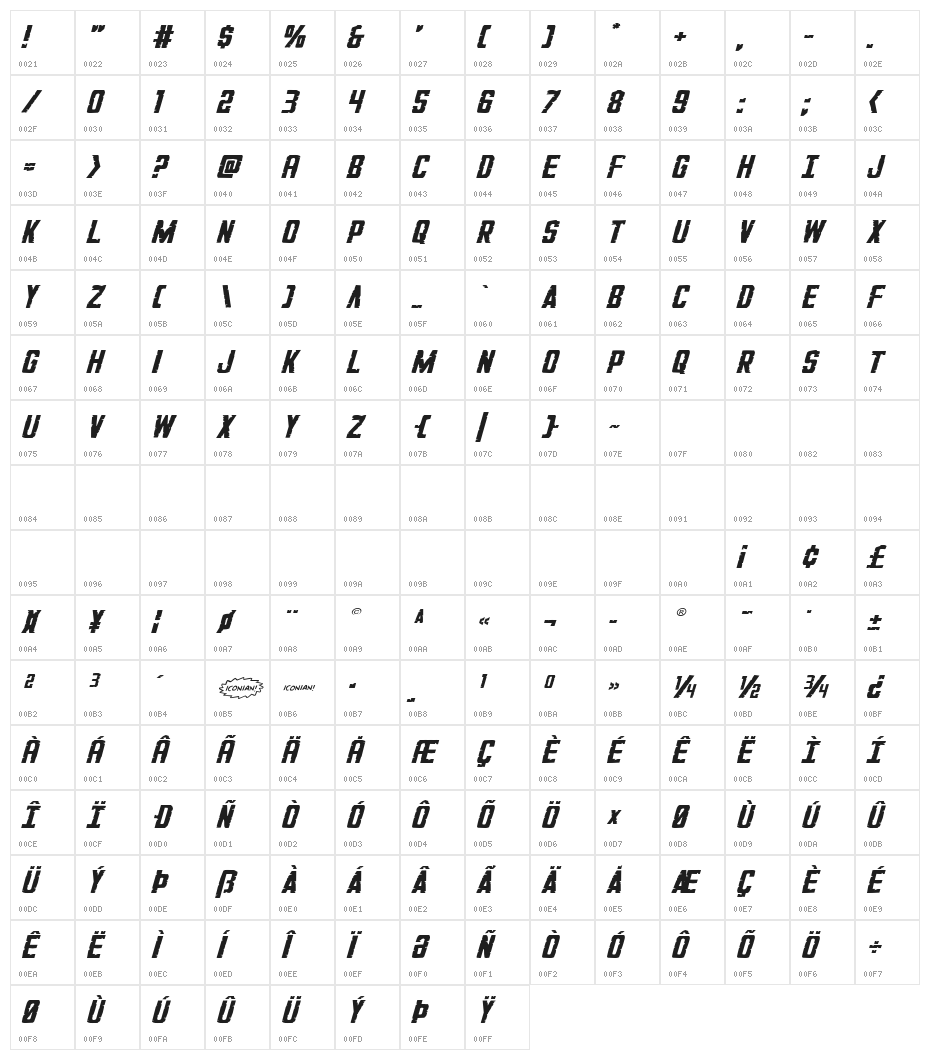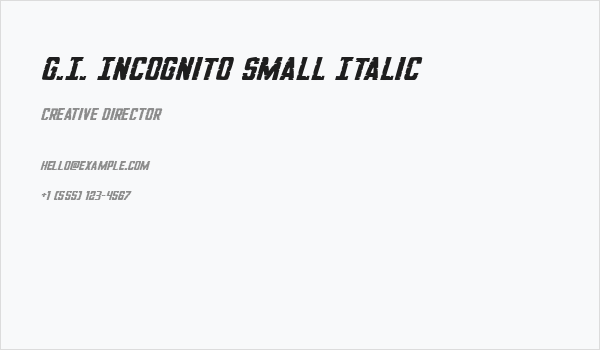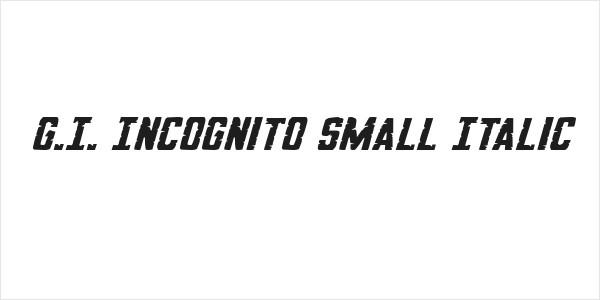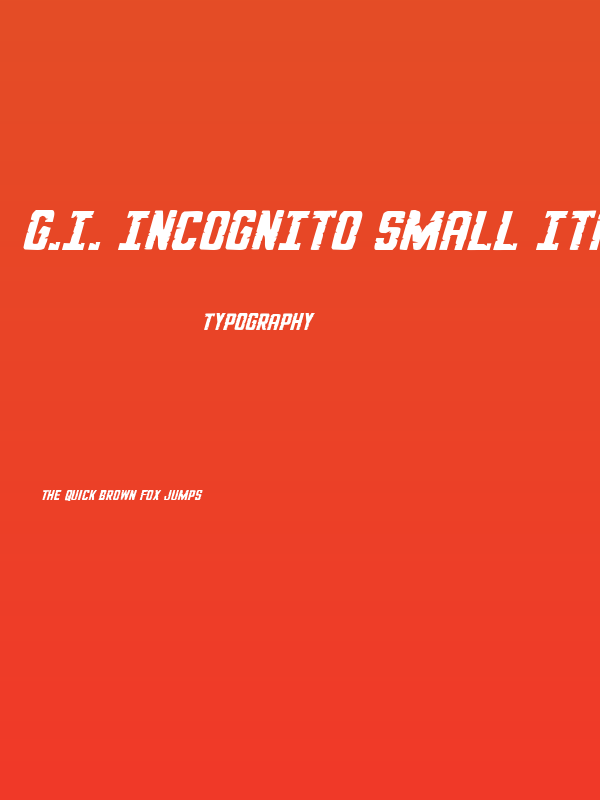
G.I. Incognito Small Italic Font
G.I. Incognito Small Italic Description
This font features a bold and dynamic design with a strong italic slant, giving it a sense of motion and energy. The characters are blocky and angular, with sharp edges and a slightly distressed texture that adds a rugged, industrial feel. The uppercase and lowercase letters maintain a consistent style, while the numerals and special characters complement the overall aesthetic. The font's boldness and unique style make it stand out, ideal for projects that require a strong visual impact.
| Overall Style | Modern, Industrial |
| Proposed Projects | Ideal for sports branding, action movie posters, video game titles, and dynamic advertising campaigns. |